Of course, this list is just based on my opinion, however the popularity of these fonts and their consistent use across the web implies the list has some worthy selections.
Be sure to evaluate which one of these fonts best fits your site design. Obviously, some will be better than others.
So here goes my top 10 Google Fonts:
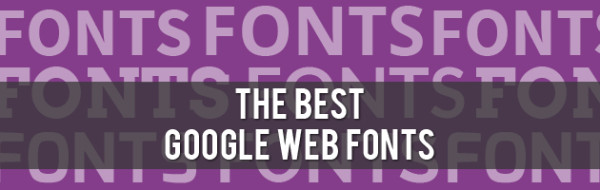
1) Open Sans
Open Sans was designed with an upright stress, open forms and a neutral, yet friendly appearance. It was optimized for print, web, and mobile interfaces, and has excellent legibility characteristics in its letterforms.
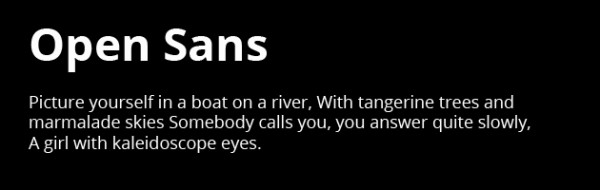
2) Droid Sans
Commonly paired with Lobster font or other serifs, Droid Sans was designed with an upright stress, open forms and a neutral, yet friendly appearance.
Droid Sans was optimized for user interfaces and to be comfortable for reading on a mobile handset in menus, web browser and other screen text.
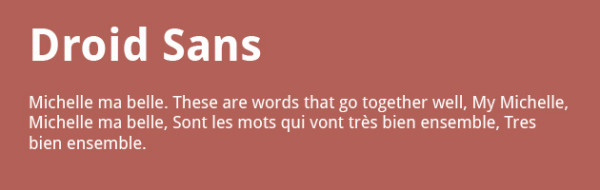
3) Oswald
Having been widely used throughout designers’ websites, the Oswald font underwent a few iterations and is now prime for your next project.0
Oswald is a reworking of the classic style historically represented by the ‘Alternate Gothic’ sans serif typefaces.
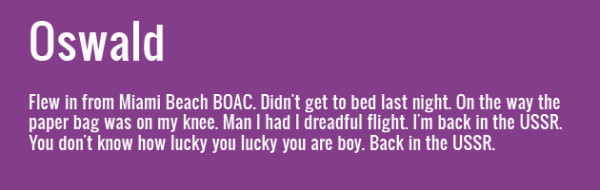
4) Lato
Originally, the Lato family was conceived as a set of corporate fonts for a large client, however the creator took a more stylistic approach.
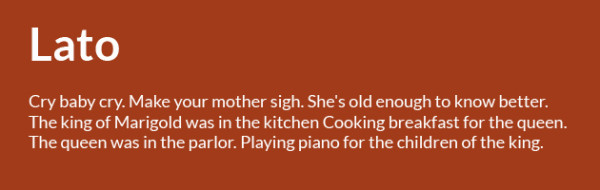
5) Arvo
Arvo is a geometric slab-serif typeface family suited for screen and print. The family includes 4 cuts: Roman, Italic, Roman Bold, Bold Italic.
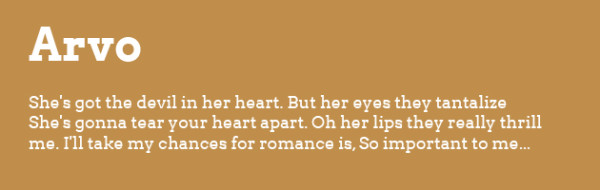
6) Raleway
Raleway is an elegant sans-serif typeface family which works quite well when you need a unique touch for headings or typographic teasers.
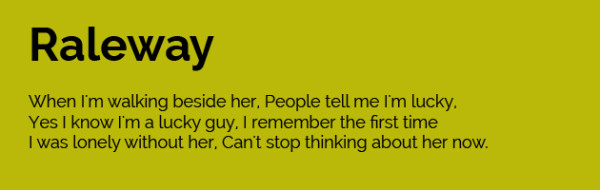
7) Montserrat
The creator was inspired by the old posters and signs in the traditional neighborhood of Buenos Aires called Montserrat widely found in urban typography from the first half of the twentieth century.
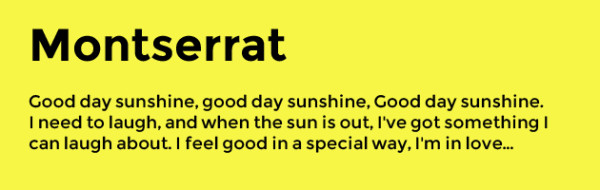
8) Exo
Exo is a contemporary geometric sans serif typeface that tries to convey a technological/futuristic feeling while keeping an elegant design.
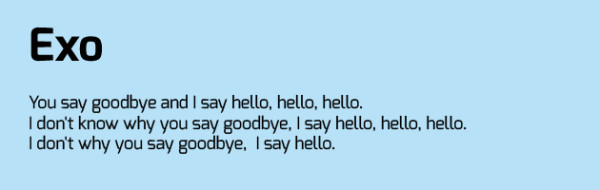
9) Oxygen
The Oxygen typeface family is created as part of the KDE Project, a libre desktop for the GNU+Linux operating system.
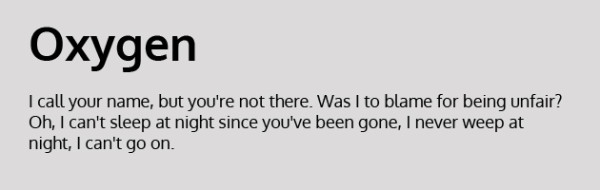
10) Roboto
Roboto has a dual nature. It has a mechanical skeleton and the forms are largely geometric. At the same time, the font features friendly and open curves.
While some grotesks distort their letterforms to force a rigid rhythm, Roboto doesn’t compromise, allowing letters to be settle in to their natural width. This makes for a more natural reading rhythm more commonly found in humanist and serif types.
11) Source Sans Pro
Adobe’s first open source typeface family, was designed by Paul D. Hunt. It is a sans serif typeface intended to work well in user interfaces.
12) Lobster
Based on ligatures (different letter-pairs), Lobster uses the best possible variation of each letter depending on the context of the letter inside each word. It’s perfect for interesting headings, but shouldn’t be over-used.
Conclusion